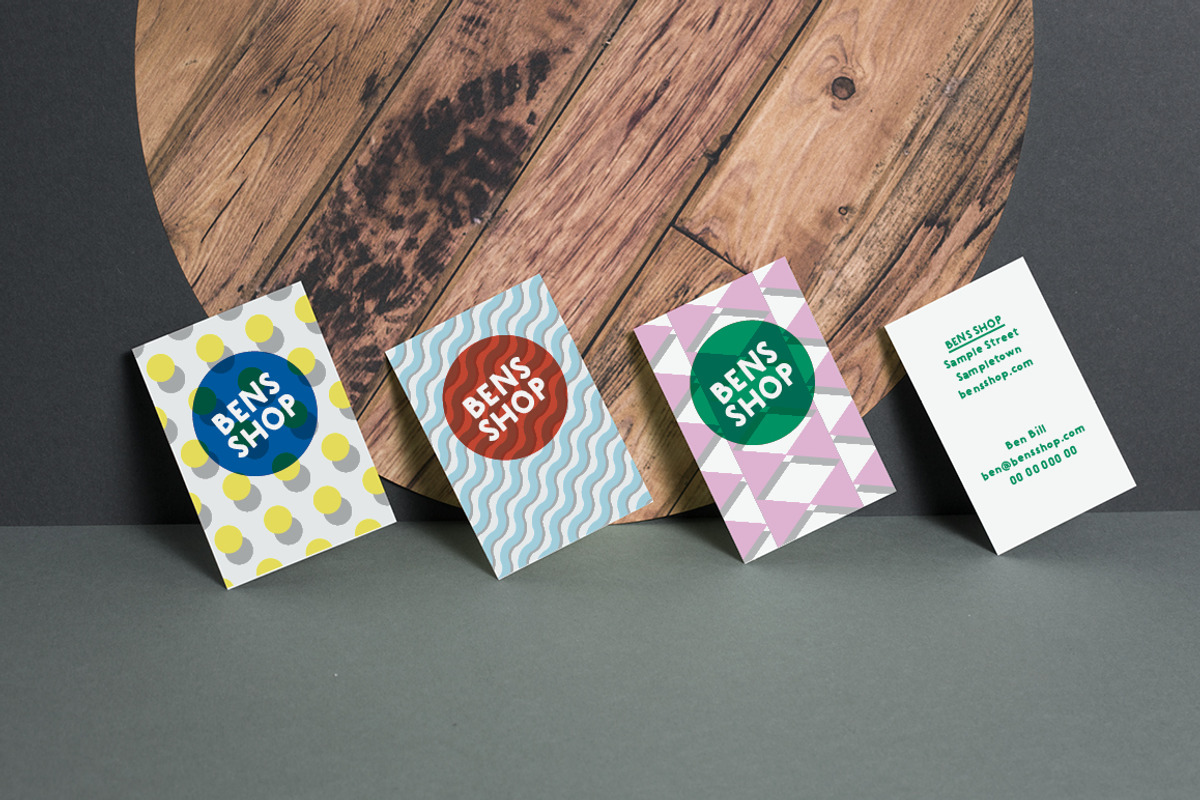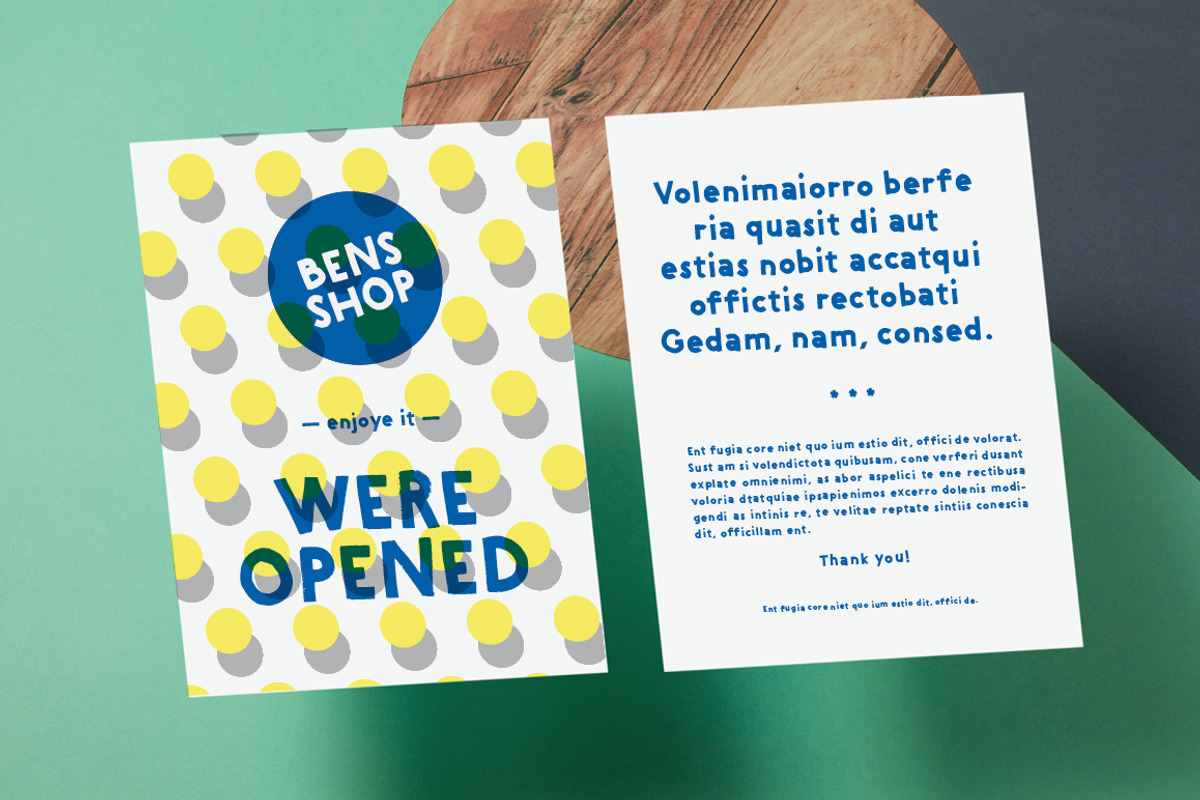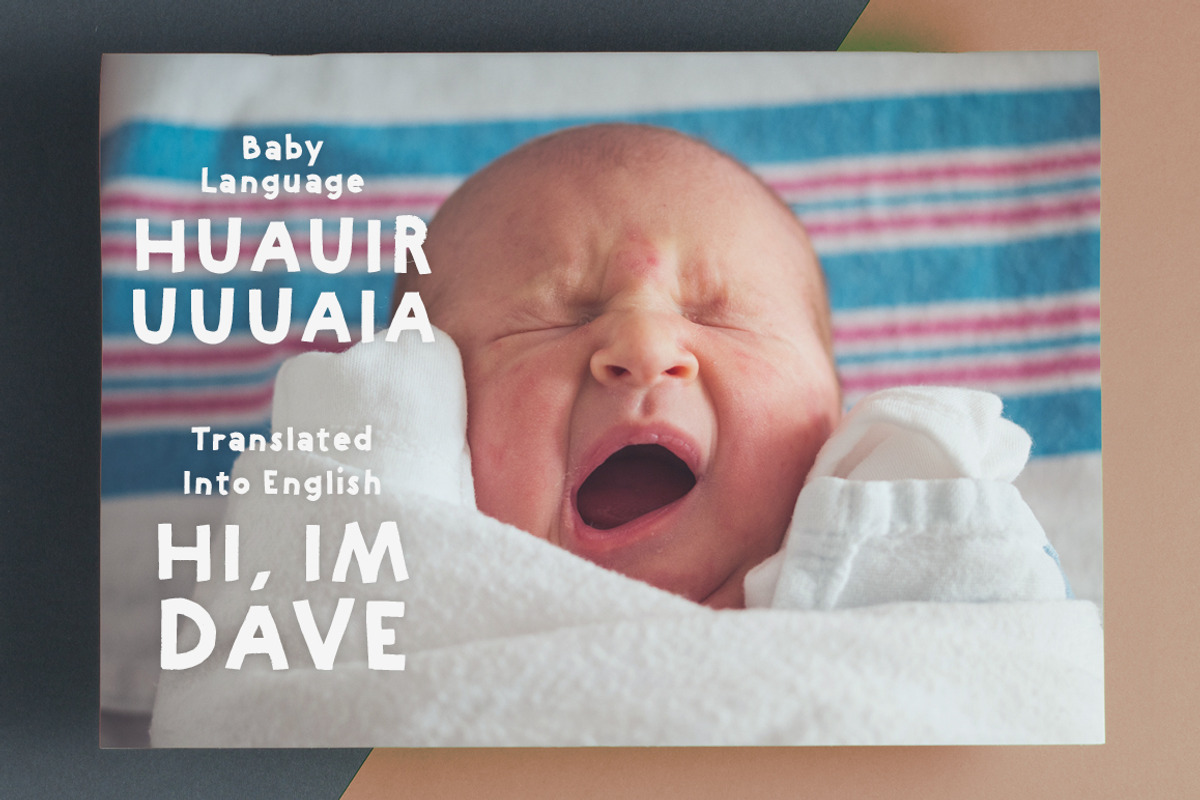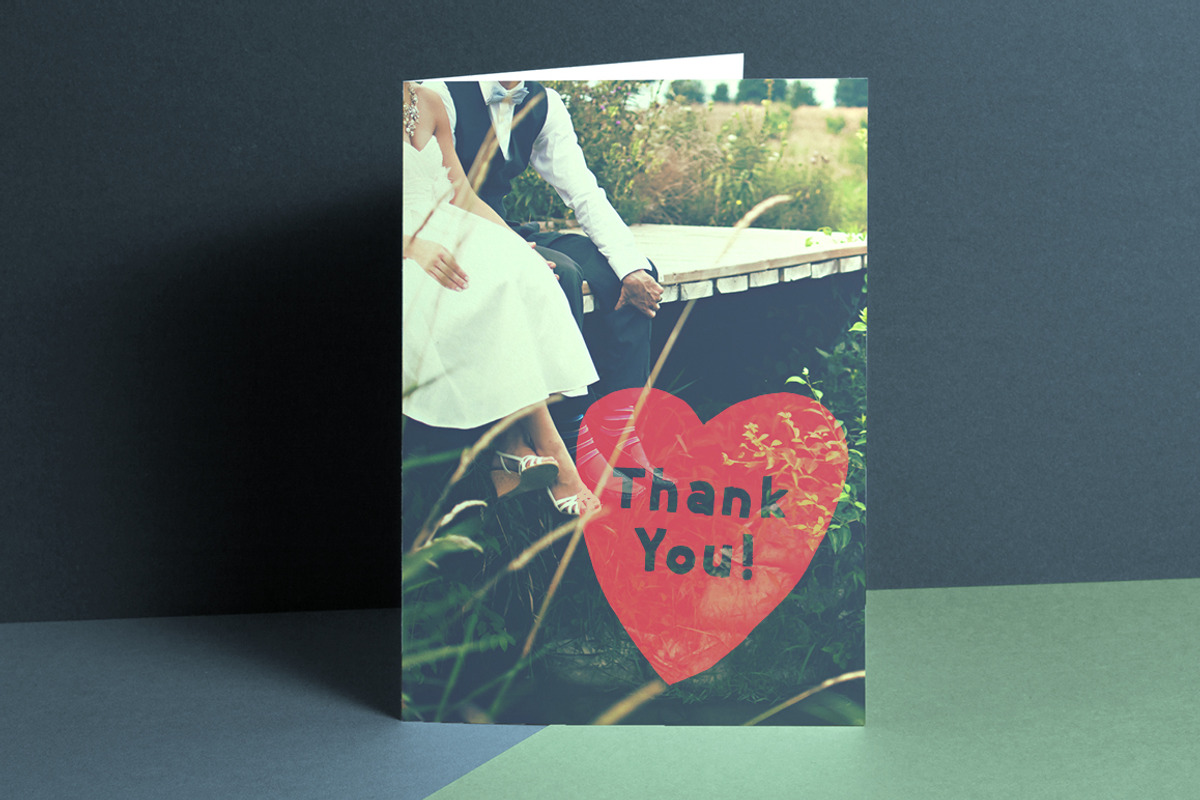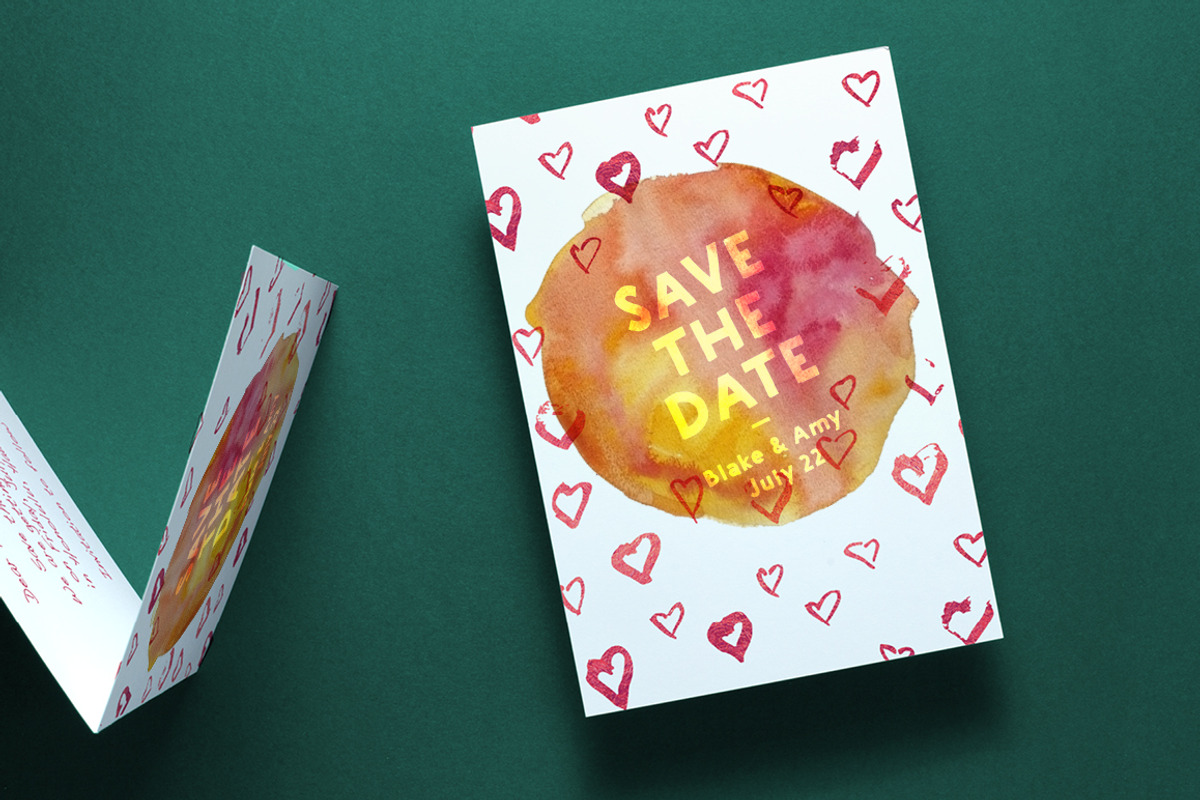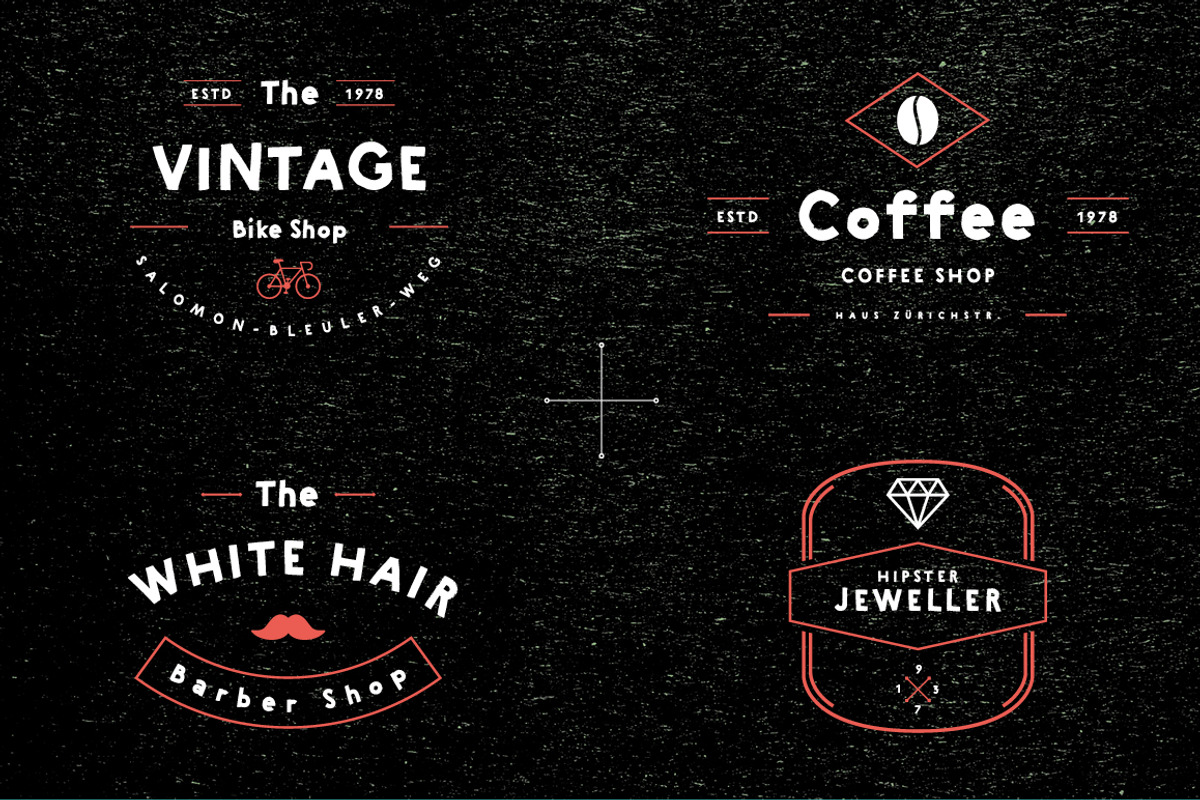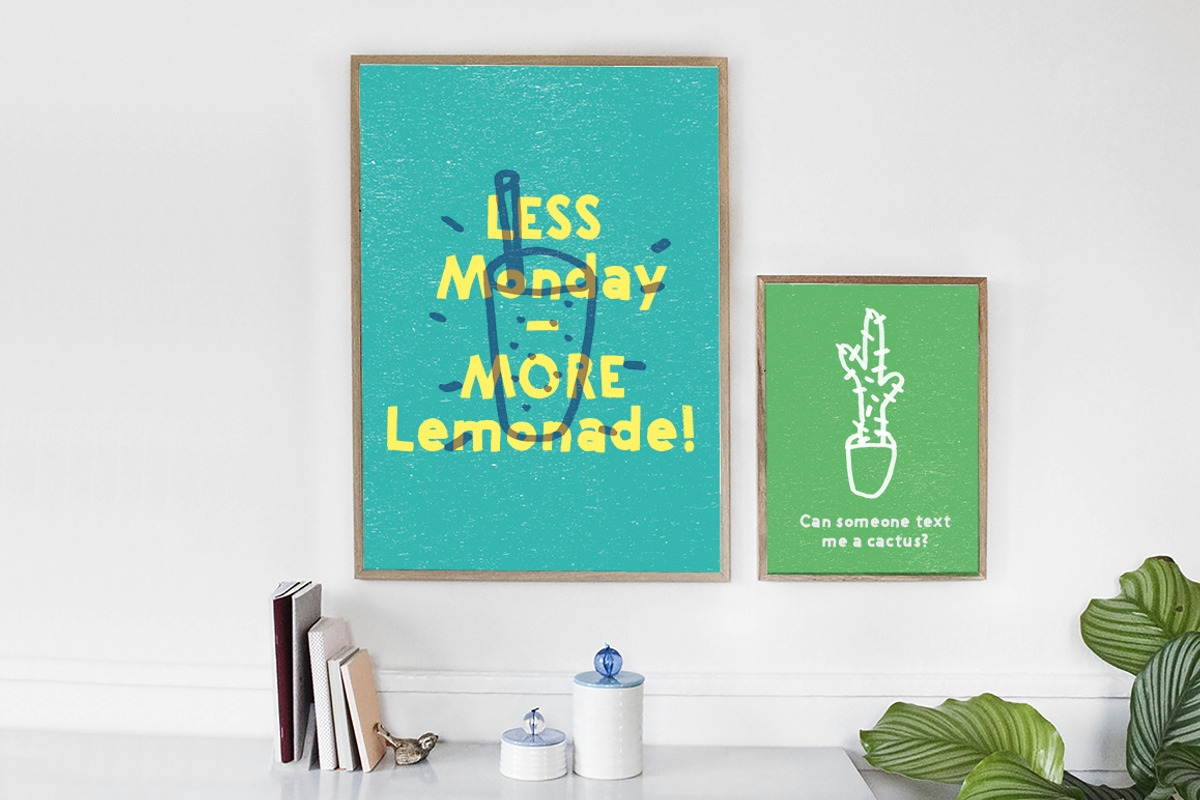
Riya - Geometric Handwritten Font
Riya - Geometric Handwritten Font by Studio ZACK is a font selected for branding, posters, packaging, typography.
Why Riya - Geometric Handwritten Font is worth a look
Riya - Geometric Handwritten Font by Studio ZACK fits naturally into Branding, posters, packaging, typography.